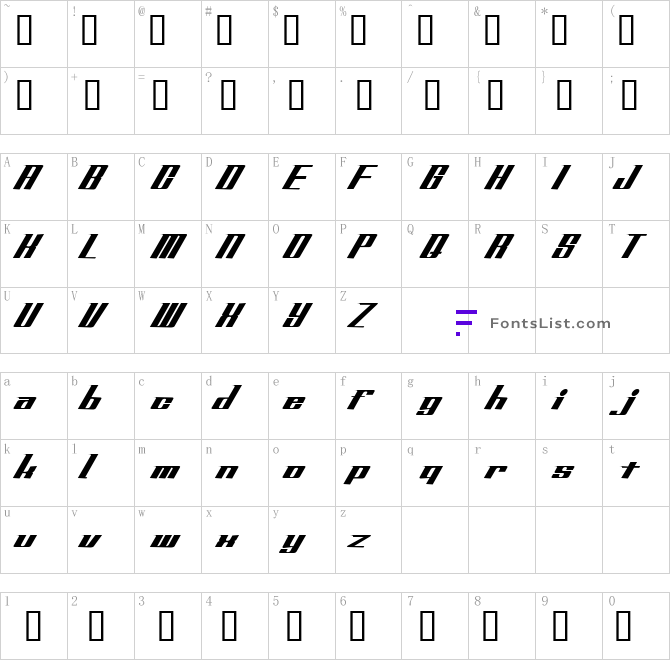
- Font Name:AddSpeedy
AddSpeedy.ttf is a very beautiful artistic font, AddSpeedy.ttf is widely used in the design and printing of various books and pictures,AddSpeedy.ttf has a strong visual impact,AddSpeedy.ttf is a commonly used font in newspapers, magazines and books, and is used in posters, e-commerce Poster design, store design, logo design, font design and other fields.AddSpeedy.